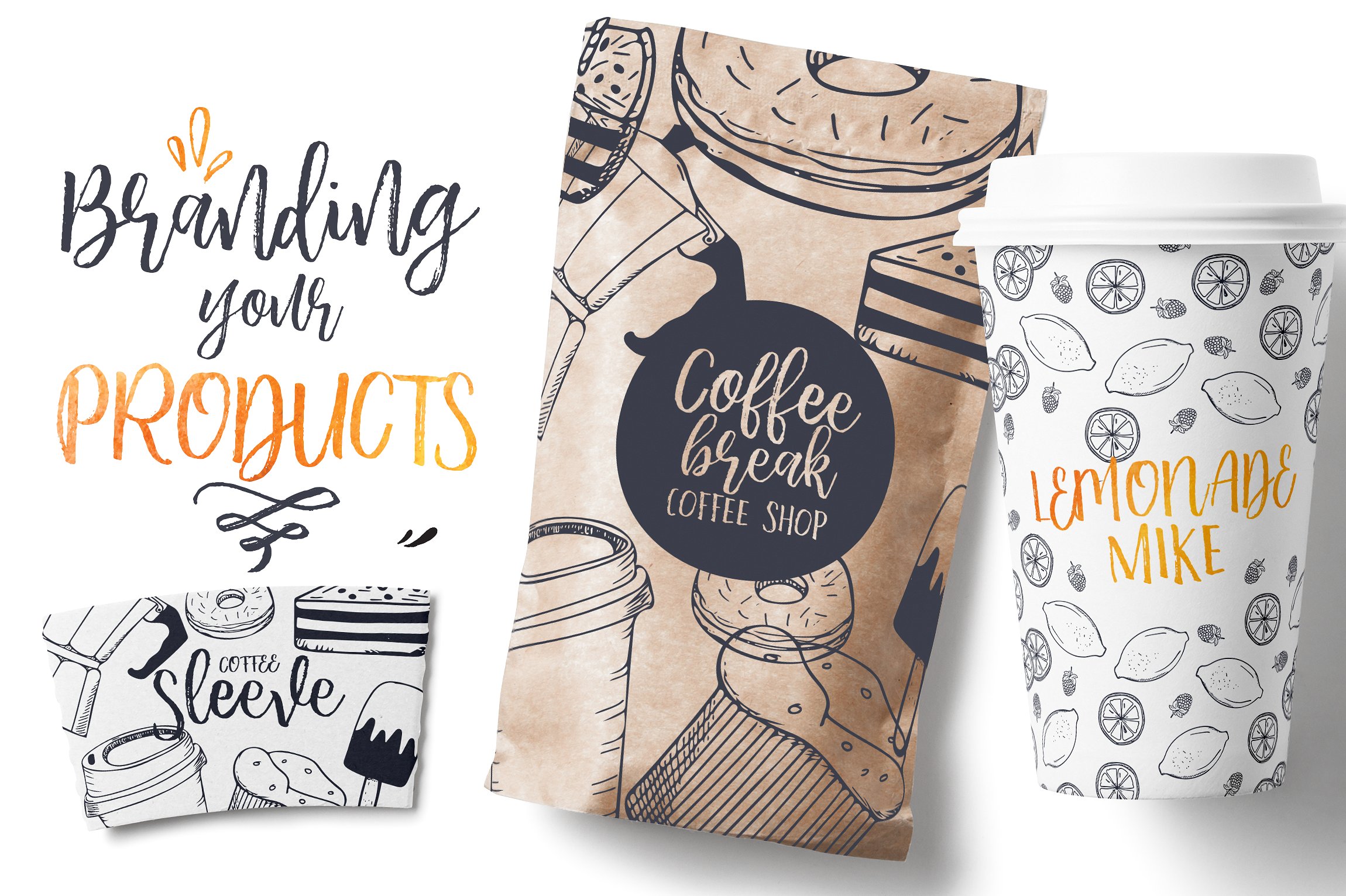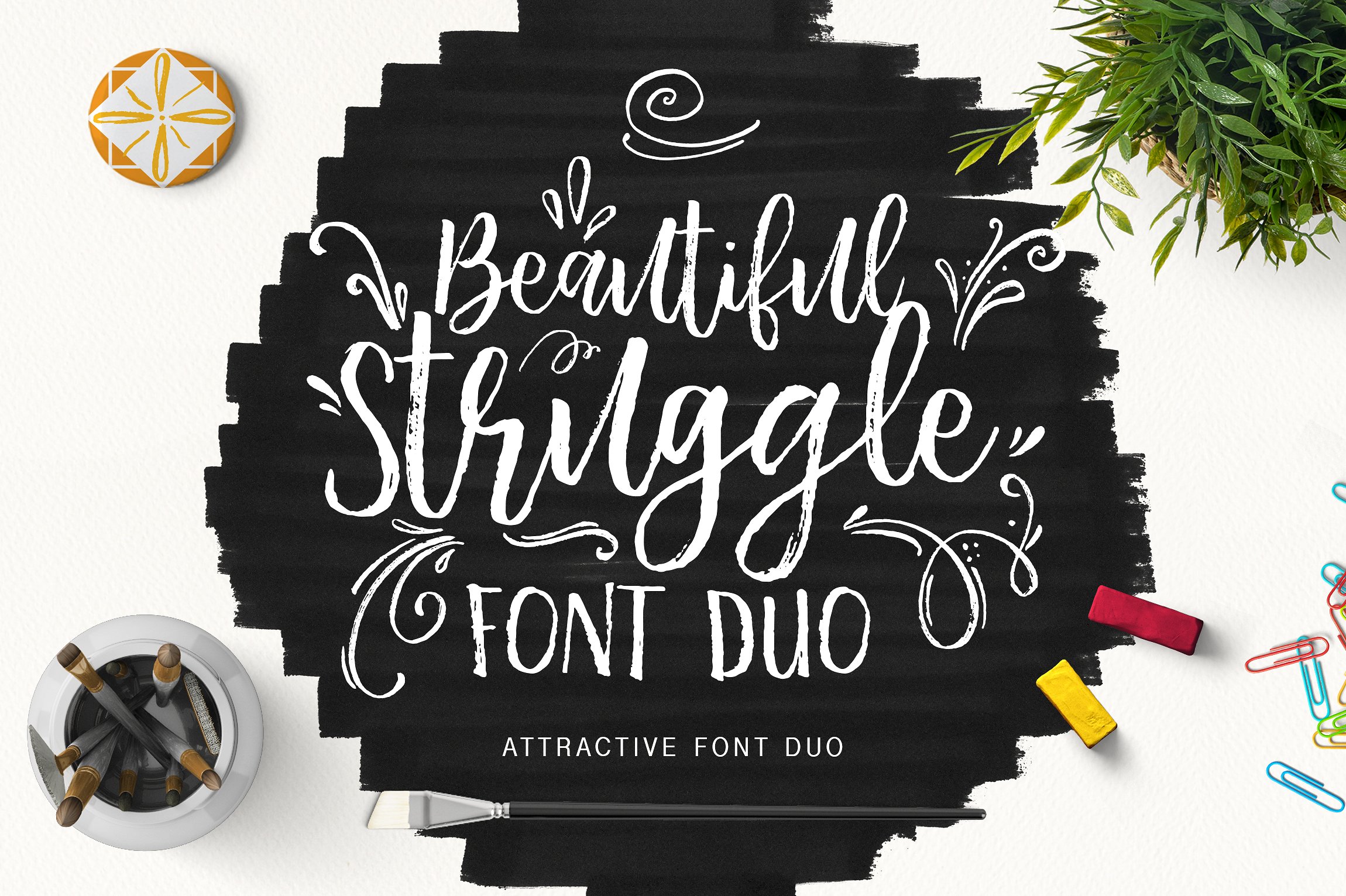
Beautiful Struggle
Beautiful Struggle Font
Beautiful Struggle Font Duo
Beautiful Struggle Font Duo is a hand brushed typeface, designed to work together in harmony to create awesome handlettered typographic designs. Perfect for Branding, Logos, Greeting Cards,Wedding Stationery, Posters, and Quotes.